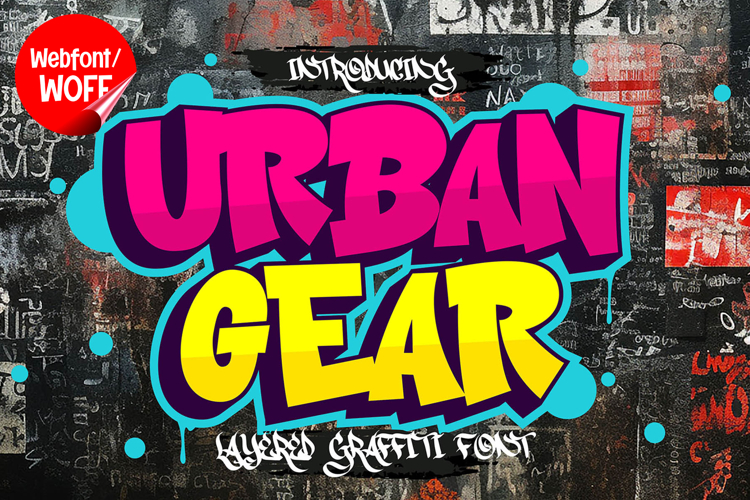
Urban Gear | 3D Layered Graffiti Webfont for Street Impact
Urban Gear is a 3D layered graffiti webfont designed to deliver bold street energy and dimensional impact for modern website design. Inspired by urban murals, mechanical lettering, and graffiti layering techniques, this font features strong shapes combined with depth-driven construction. It is an excellent choice for projects that aim to create a powerful, edgy, and highly visual typographic identity.
Urban Gear includes a complete set of uppercase characters designed with bold graffiti-inspired forms enhanced by 3D layered effects. The dimensional structure adds depth and strength, making each letter visually impactful and attention-grabbing. These characteristics make it ideal for headlines, banners, hero sections, and featured content where strong visual emphasis is required.
In addition to letters, the font includes numbers and punctuation, allowing flexible usage across various parts of a website. It works well for promotional content, branding elements, event announcements, product showcases, and navigation highlights. Each character maintains a consistent layered graffiti style, ensuring a cohesive and unified visual identity throughout the layout.
With multilingual support, Urban Gear includes a wide range of accented characters, making it suitable for international websites and global audiences. This ensures content remains clear and accessible across different languages while preserving its bold and urban aesthetic.
The 3D layered graffiti style of Urban Gear makes it especially suitable for streetwear brands, music platforms, gaming interfaces, automotive projects, and creative portfolios. Its strong and dimensional appearance adds intensity and personality, helping websites stand out in visually competitive environments. The layered effect enhances depth and gives the typography a modern industrial feel.
Despite its bold and decorative appearance, Urban Gear is designed with readability in mind. The spacing and proportions are carefully balanced to ensure clarity, particularly in display sizes. This allows designers to use the font effectively for impactful headings and short content without sacrificing usability.
Urban Gear is a webfont that combines graffiti aesthetics with layered depth and modern digital performance. Its bold forms, dimensional structure, and urban character create a distinctive typographic presence that enhances website design. For projects that require a strong, edgy, and visually engaging graffiti font, Urban Gear offers a powerful and versatile solution.